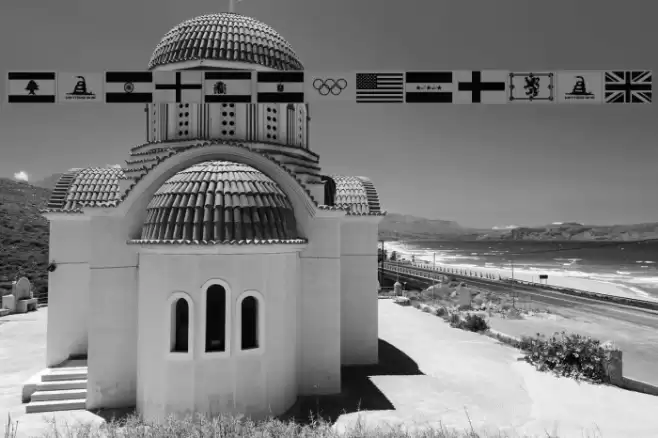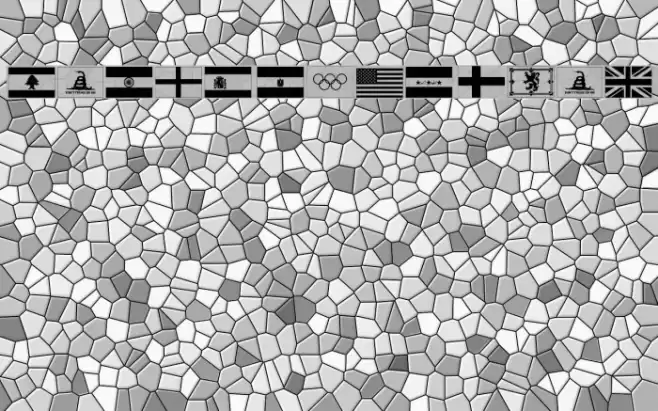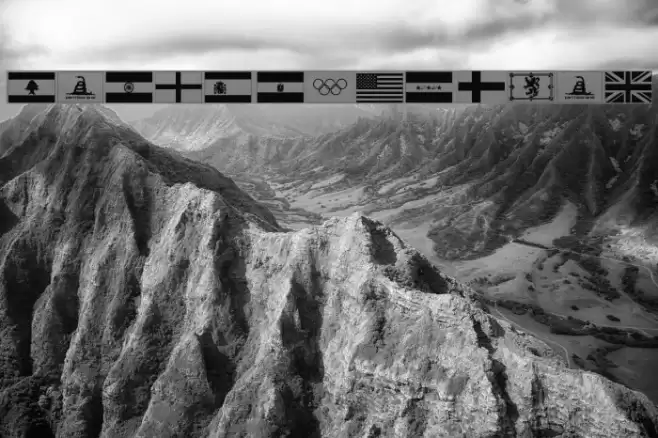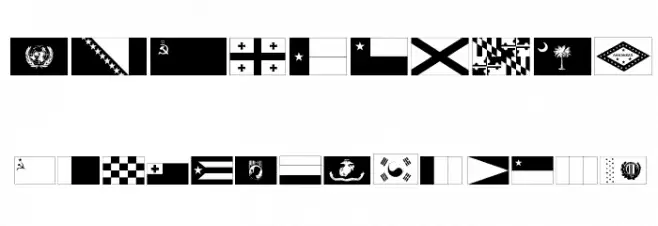
Raise Your Flag Font
Raise Your Flag Description
A decorative display font where each character is represented by a unique black-and-white flag or emblem, featuring a mix of national, historical, and organizational flags. The glyphs are rectangular, highly stylized, and lack traditional typographic features such as serifs or variable stroke widths.
A flag-themed decorative display font with each character as a distinct flag from Uncategorized fonts.
- Proposed Projects: Educational posters, themed event invitations, games, visual puzzles, or any project requiring symbolic or illustrative representations of countries or organizations.
- Overall Style: Decorative, Thematic
- Use Case: Logos, Posters, Themed Graphics, Educational Materials